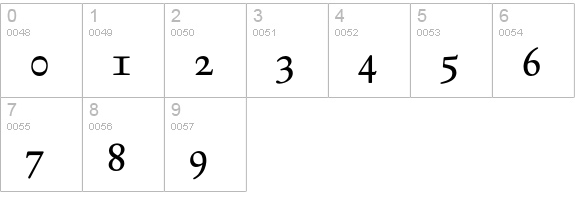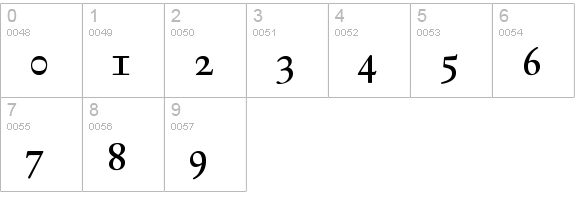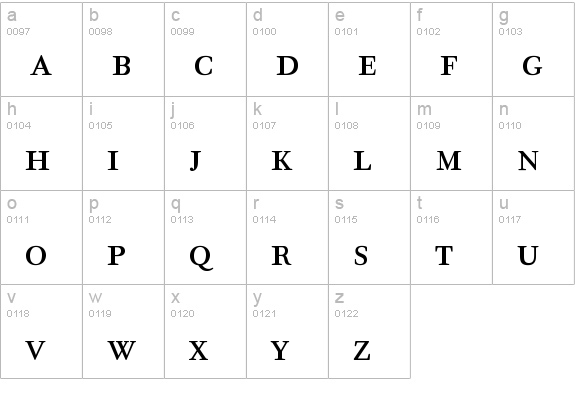
Quadriga Expert Regular is the standard, neutral variant in the Quadriga typeface family \xE2\x80\x94 well suited to general body text, paragraphs, and standard typographic work.
Quadriga Expert Regular is a versatile and contemporary font that exudes elegance and sophistication. With its clean lines and well-balanced proportions, this typeface is perfect for a wide range of design projects, from branding and advertising to editorial and packaging. Its timeless aesthetic ensures that it will never go out of style, making it a wise choice for any creative endeavor. The Quadriga Expert Regular font offers a harmonious blend of classic and modern design elements, resulting in a truly unique and captivating typeface. Its crisp and legible letterforms make it easy to read, while its subtle details add a touch of refinement and finesse. This font is sure to elevate any text it is used in, giving it a professional and polished look. One of the best features of Quadriga Expert Regular is that it is freely available to download at FontsMarket.com. This means that designers and creatives can easily access this stunning font without any hassle or cost. Whether you are a professional designer or a hobbyist, having access to high-quality fonts like Quadriga Expert Regular can greatly enhance your creative projects. So why wait? Download Quadriga Expert Regular today from FontsMarket.com and unlock a world of possibilities for your designs. Whether you are working on a logo, a website, or a publication, this font is sure to make a lasting impression. With its versatility, elegance, and the convenience of being freely available, Quadriga Expert Regular is a must-have font for any designer.